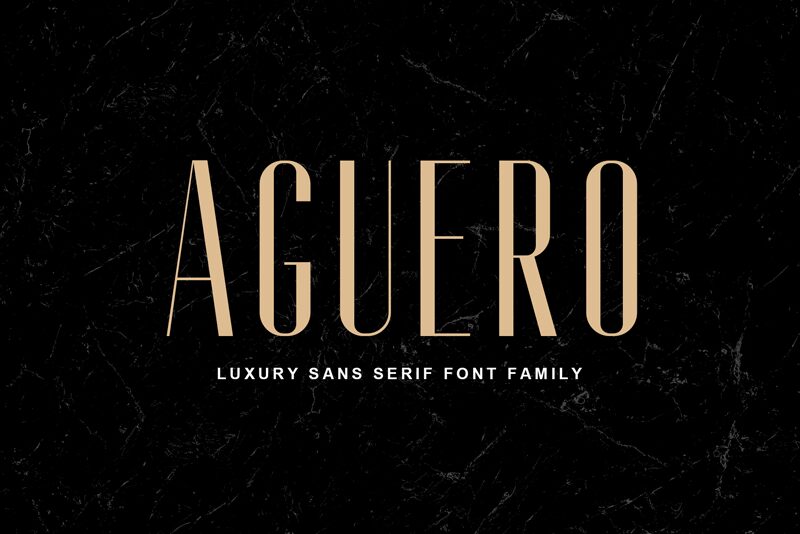
Aguero Sans Free Regular
Craft Supply Co. presents Aguero Sans, a luxurious and versatile font that exudes elegance and sophistication. With its semi-light weight and extra-condensed width, this sans serif font is perfect for creating sleek and modern designs.
Whether it's high-end fashion branding, elegant invitations, or minimalist editorial layouts, Aguero Sans adds a touch of class to any project. Its clean lines and refined aesthetic make it suitable for luxury brands, upscale packaging, and exclusive events.
Elevate your designs with Aguero Sans and let its timeless appeal captivate your audience.